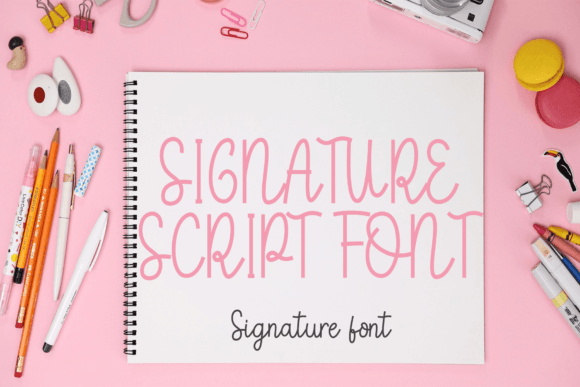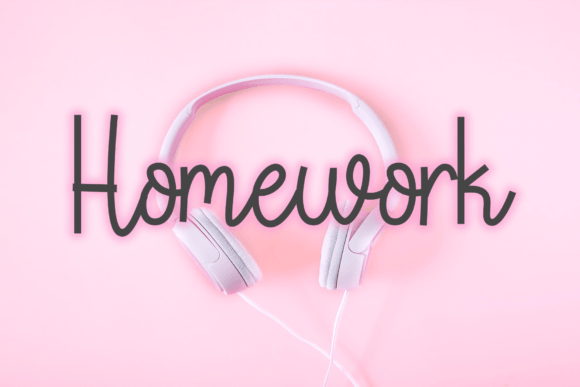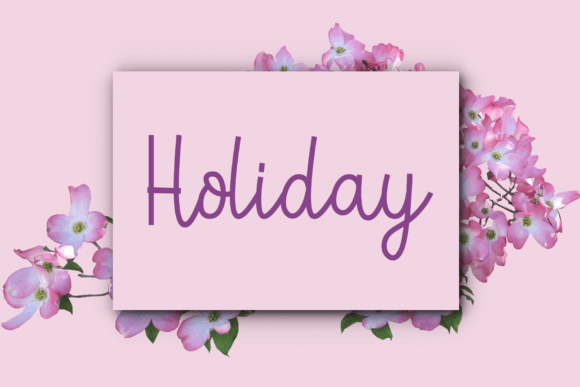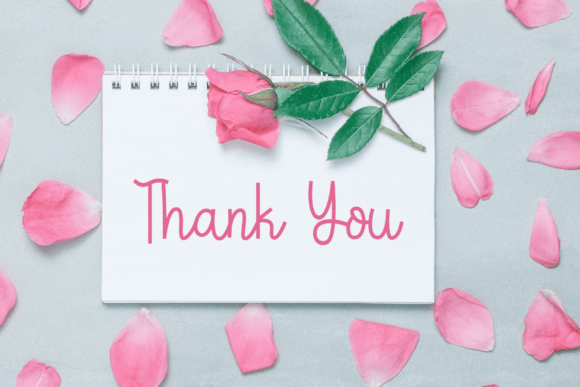
Amsterdam Font
About Amsterdam Font
“Amsterdam” is a magical script font thoughtfully crafted with a touch of elegance. Whether you’re searching for fonts suitable for Instagram posts or calligraphy scripts for DIY projects, this font has the transformative power to turn any creative idea into a true piece of art.
The magic of “Amsterdam” lies in its script design, which adds an element of charm and sophistication to your projects. The carefully curated elegance embedded in the font makes it versatile for a wide range of applications, ensuring that it can enhance the visual appeal of your creative endeavors.
Whether you’re working on social media graphics, DIY projects, or any design that requires a blend of magic and elegance, “Amsterdam” stands out as a font that elevates your ideas and transforms them into captivating pieces of art.
In the realm of Instagram or other social media platforms, this font can serve as a stylish and attention-grabbing choice. Its magical script design adds a touch of whimsy, making your posts and messages stand out with a unique and enchanting flair.
“Amsterdam” is not just a font; it’s a creative tool carefully designed to infuse elegance and magic into your projects. Whether you’re crafting digital content, DIY creations, or any other artistic endeavor, this magical script font is poised to add a touch of enchantment to your work.